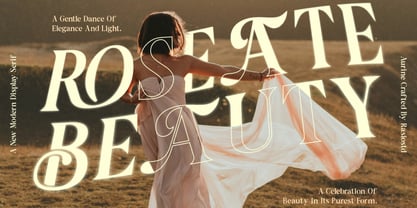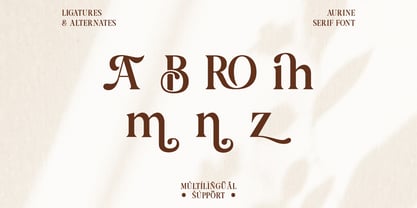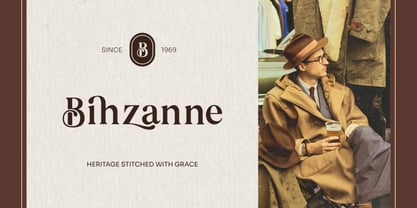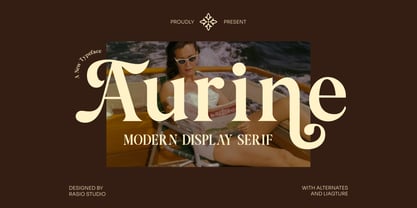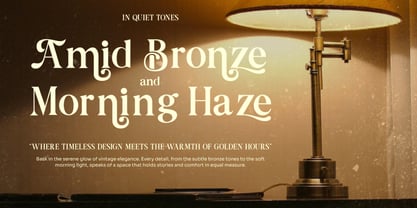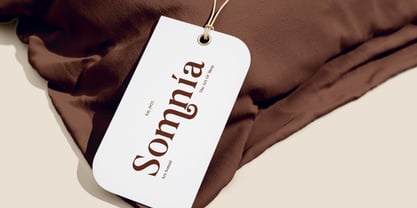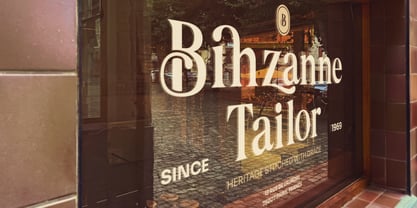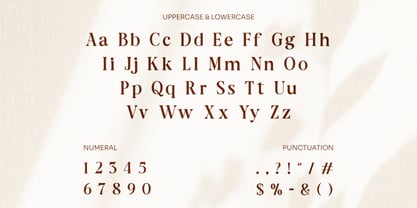
Aurine
by Rasio Studio
The Aurine Font Family was designed by Fajar Indra and published by Rasio Studio. Aurine contains 1 styles. More about this family
Aurine is a modern display serif that blends vintage charm with contemporary elegance. Its bold letterforms feature graceful curves, high contrast strokes, and refined alternates that create a luxurious visual rhythm. Perfect for projects that require a sophisticated touch, Aurine captures the timeless essence of editorial and fashion typography. With uppercase, lowercase, ligatures, alternates, and multilingual support, Aurine offers versatility for logos, headlines, magazines, and luxury branding. Every curve reflects confidence, making it a statement font for modern designers.